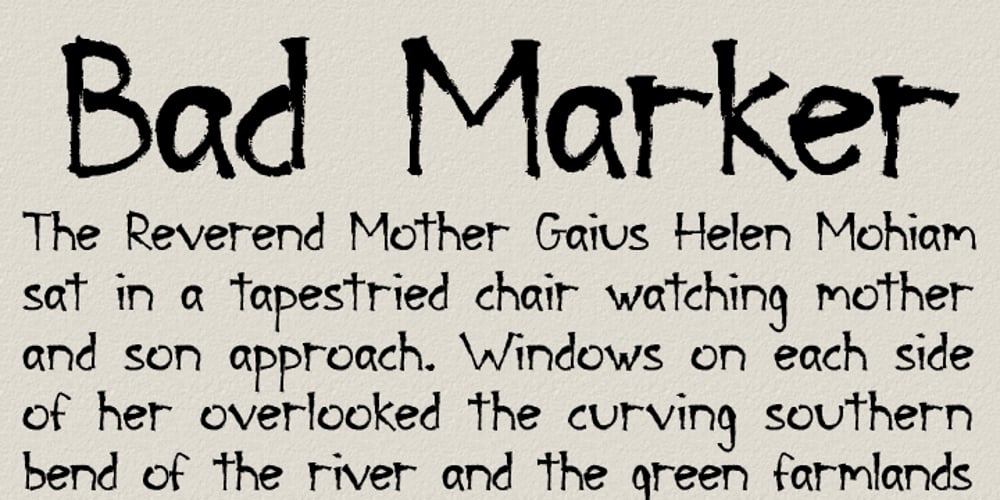
Bad Marker Font Family was designed by Alec Julien and published by Haiku Monkey. Bad Marker contains 1 styles and family package options. The marker has been sitting in your pen drawer for years. You can’t bring yourself to throw it out, because it’s the best marker in the world; but it has become worn and frayed, and you can’t bring yourself to use it, either. But today you have just the project for the best bad marker in the world, and you take it from the drawer, remove the cap, and notice with glee that time has accumulated a perfect supply of ink in the frayed tip. You bring it down on the pristine white paper in front of you, and magic begins to trace itself on the page…